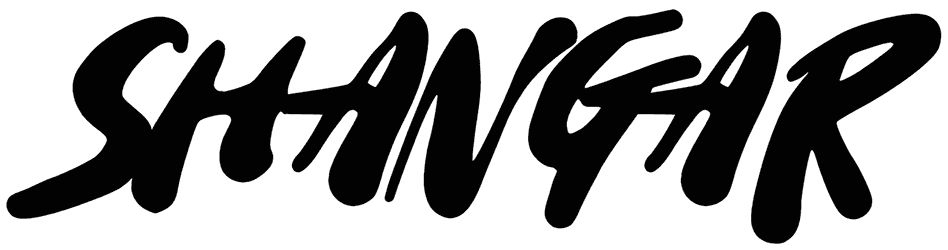
Shangar Font
We strongly offer you to add an 80s brush font such as Shangar to your creative ideas including posters, brochures, flyers, menus, and greeting cards to notice how it makes them stand out. Since the characters of this all-caps typeface are a little bit tilted and curved, it carries a sense of jauntiness, dynamic, drama, and fun.